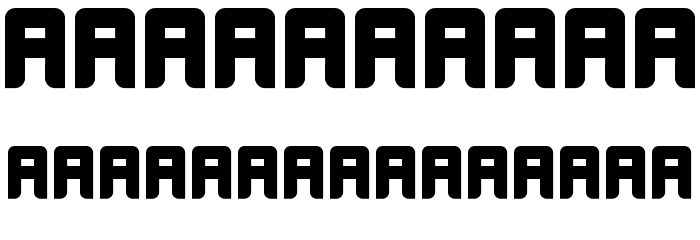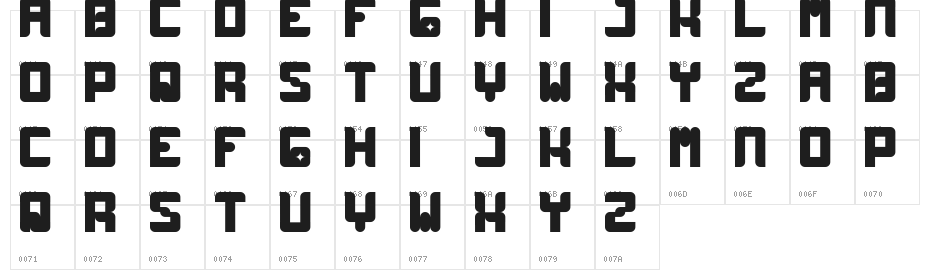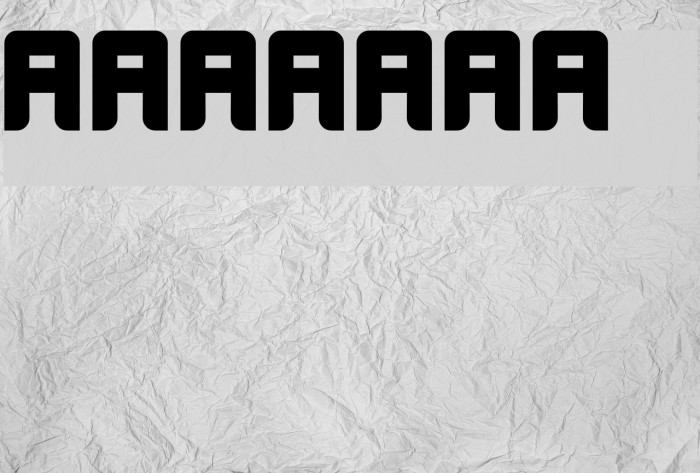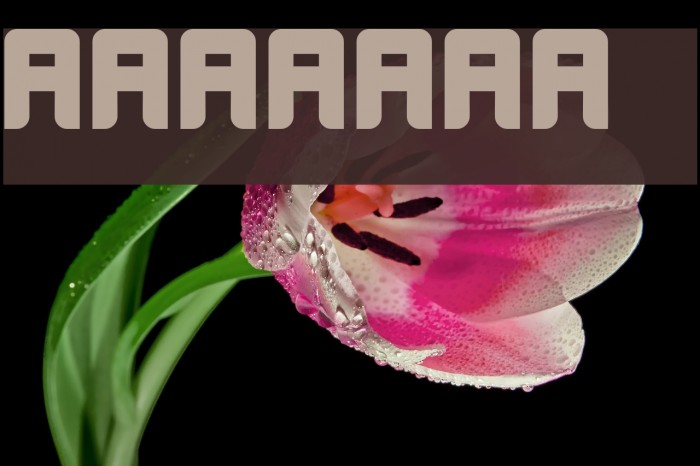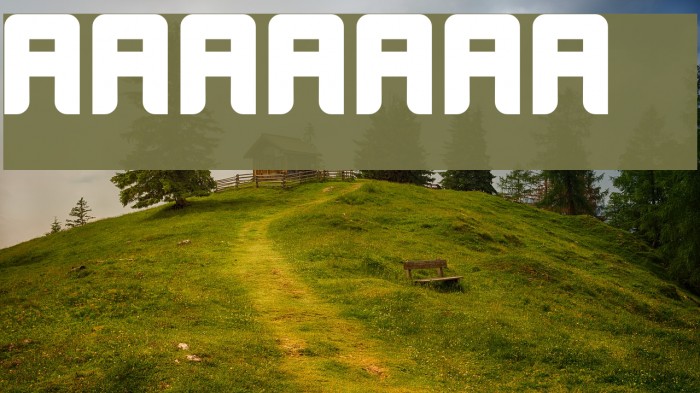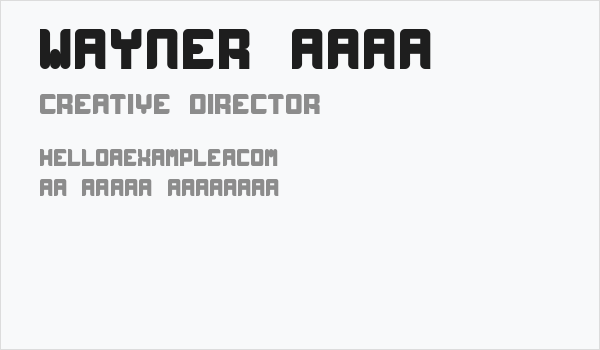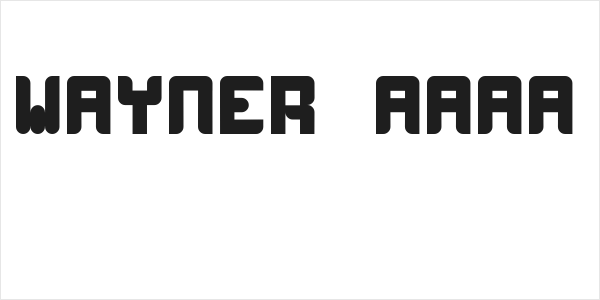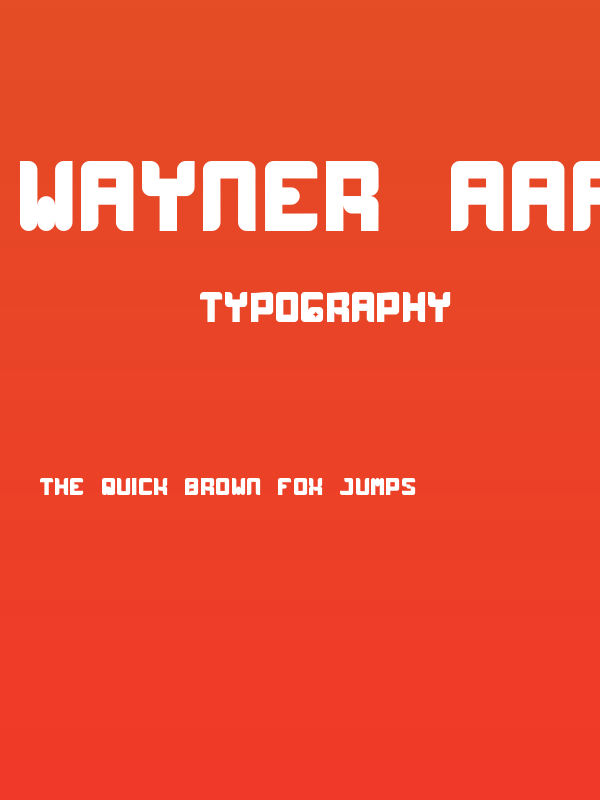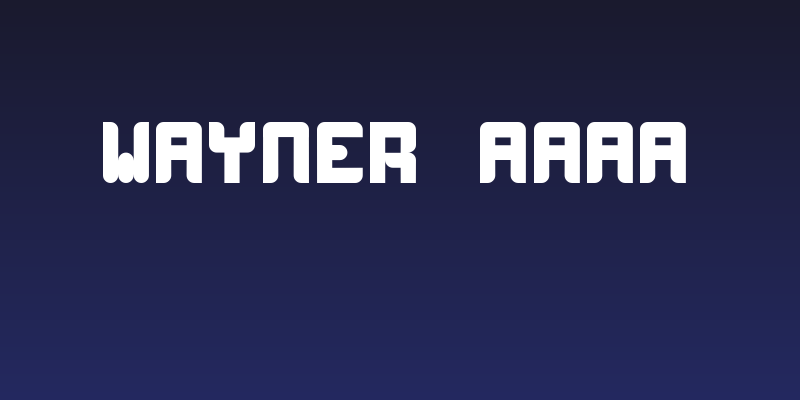
Wayner 8088 Font
Wayner 8088 Description
This font features a bold, geometric style with a strong emphasis on uniformity and structure. Each character is crafted with thick, consistent strokes, creating a sense of stability and modernity. The design is highly legible, making it suitable for various applications where clarity is paramount. The characters exhibit a block-like appearance, with rounded edges that soften the overall look, adding a touch of approachability to its otherwise robust form. This font is ideal for projects that require a contemporary and assertive typeface.
| Proposed Projects | Ideal for branding, signage, headlines, and digital interfaces where a modern and bold statement is needed. |